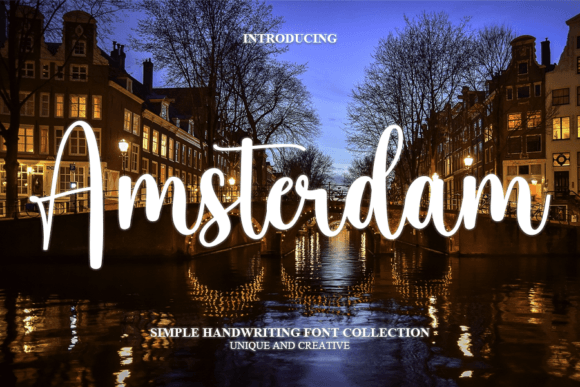
The Amsterdam Font: A Delicate Handwritten Gem for Creative Projects
An Honest Review of Amsterdam Font
So, what do I love about the Amsterdam font? Here are a few things that make it stand out:
- ✨ Delicate and elegant handwritten style that’s perfect for a variety of design projects
- ✅ Extensive character set, including glyphs and stylistic alternates
- ✅ Works well for both digital and print designs
Of course, no font is perfect, and Amsterdam has a few small quirks:
- 🤔 Limited availability of certain characters, such as ligatures
- ⚠️ May not be suitable for very large or bold designs, as it can lose its delicate charm
A Practical Guide to Using Amsterdam Font
The Story Behind Amsterdam Font
While the true story behind Amsterdam font remains a mystery, it’s easy to imagine a designer sitting in a quaint café in Amsterdam, inspired by the city’s charming canals and historic architecture. The font’s delicate lines and elegant curves evoke a sense of refinement and sophistication, perfect for designers looking to add a touch of whimsy to their projects.
| Font Name | Amsterdam Font |
| Author | ade studio |
| What type of projects is Amsterdam font best suited for? | Amsterdam font is versatile and can be used for a variety of projects, including invitations, food product labels, titles, and more. |
| Is Amsterdam font suitable for body text? | While Amsterdam font is highly legible, it’s best used for headings, titles, and short paragraphs. For longer body text, a more traditional font might be more suitable. |
| Does Amsterdam font come with any special features? | Yes, Amsterdam font comes with a range of OpenType features, including glyphs, stylistic alternates, and ligatures, which can add visual interest to your designs. |